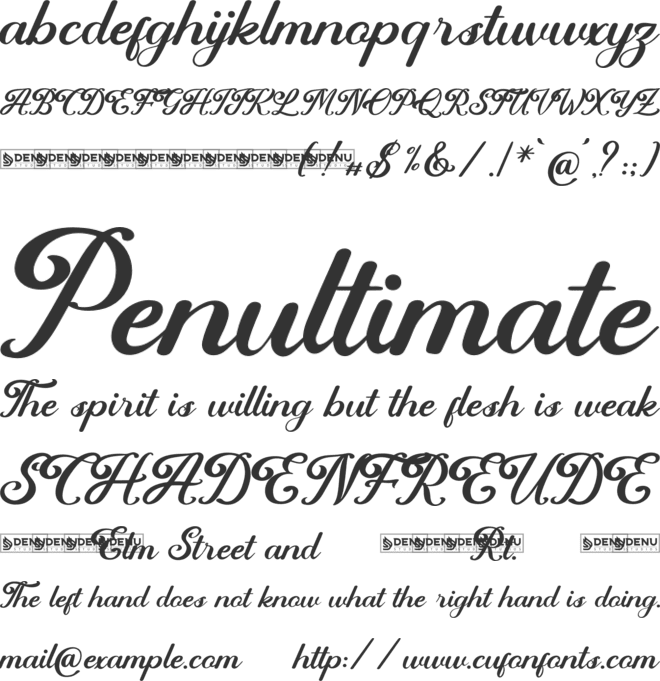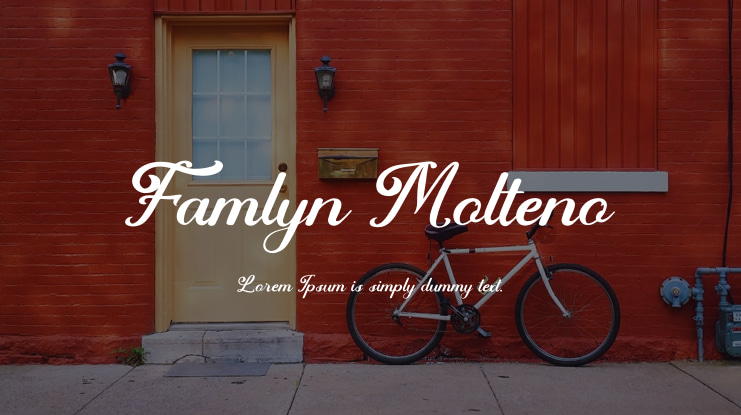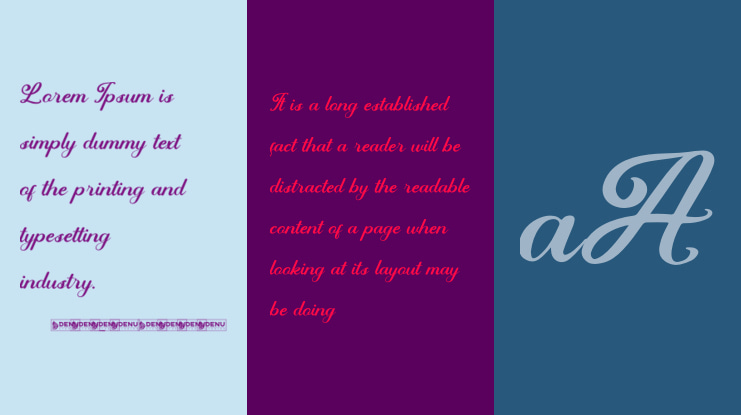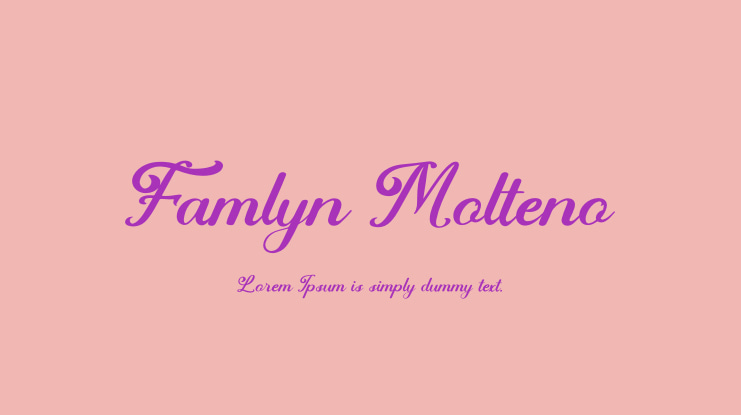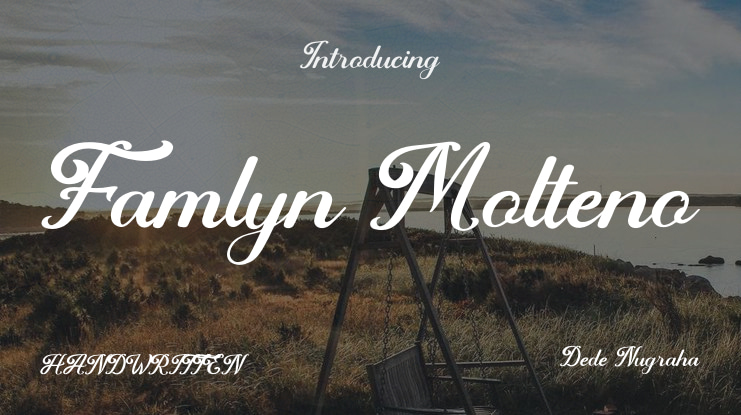
Famlyn Molteno | Handwritten Script Font is perfect for various projects such as:
- Logos - Branding projects - Homeware designs - Product packaging - Mugs - Quotes - Posters - Shopping bags - T-shirts - Book covers - Name cards - Invitation cards - Greeting cards - Labels - Photography - Watermarks - Special events
And any other lovely projects that require a beautiful script touch.